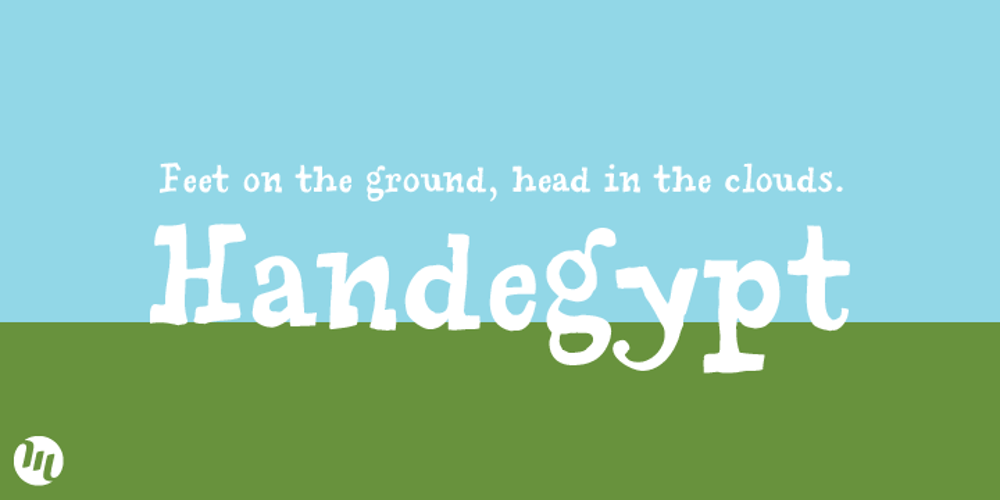
Handegypt Font Family was designed by Matthew Aaron Desmond and published by MADType. Handegypt contains 2 styles and family package options. Handegypt resulted from playfully hand-rendering Egyptian style fonts from memory. Its playful nature is ideally suited for whimsical designs and anything aimed at children.